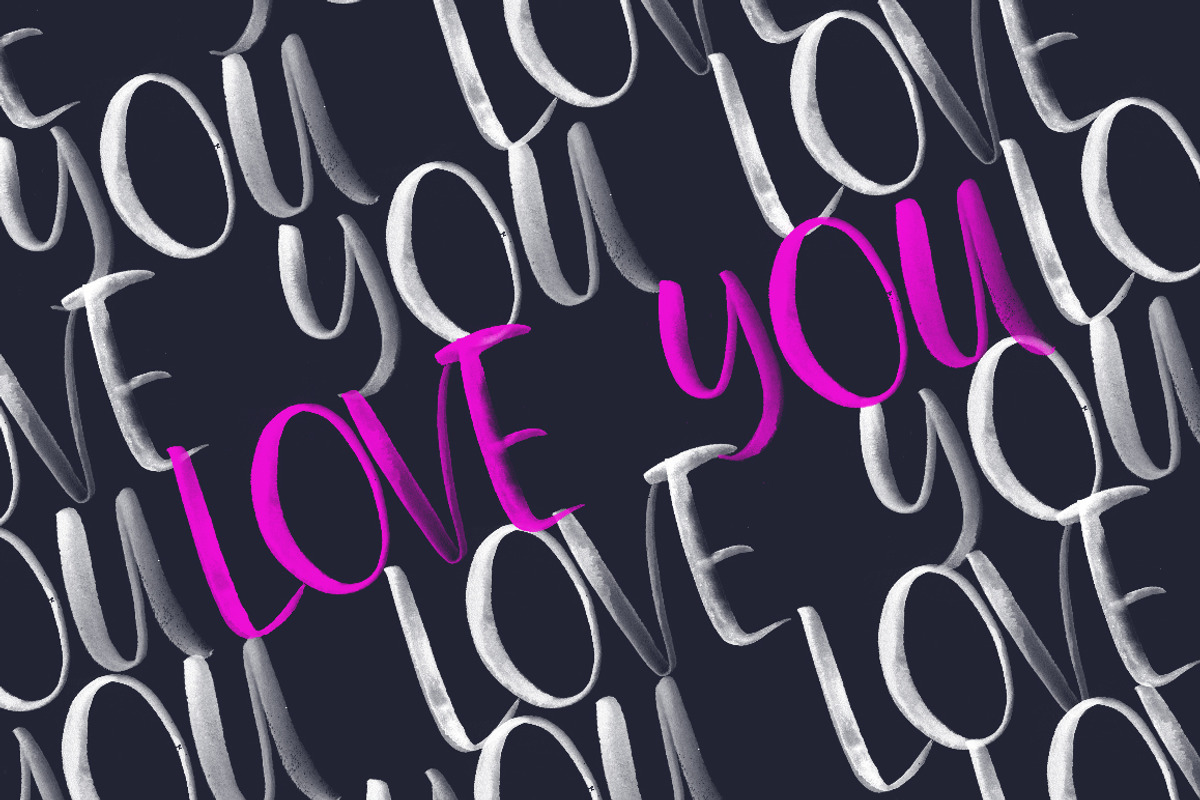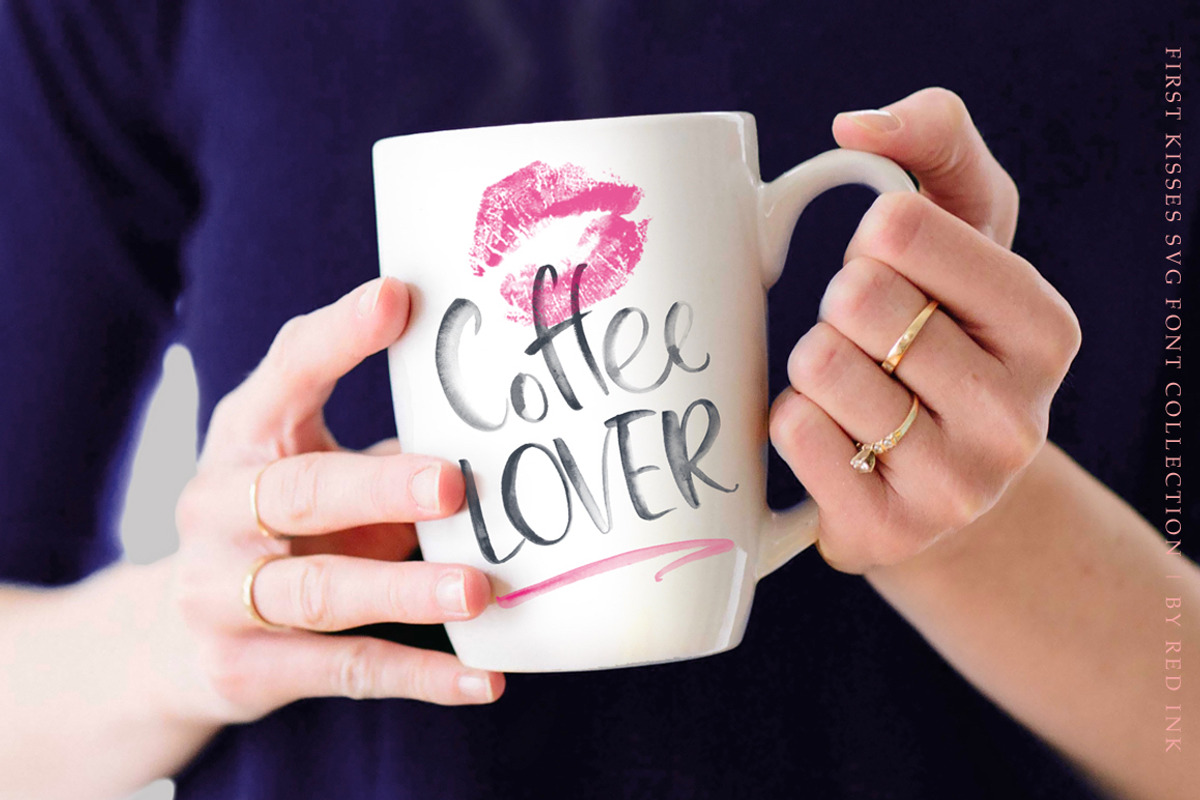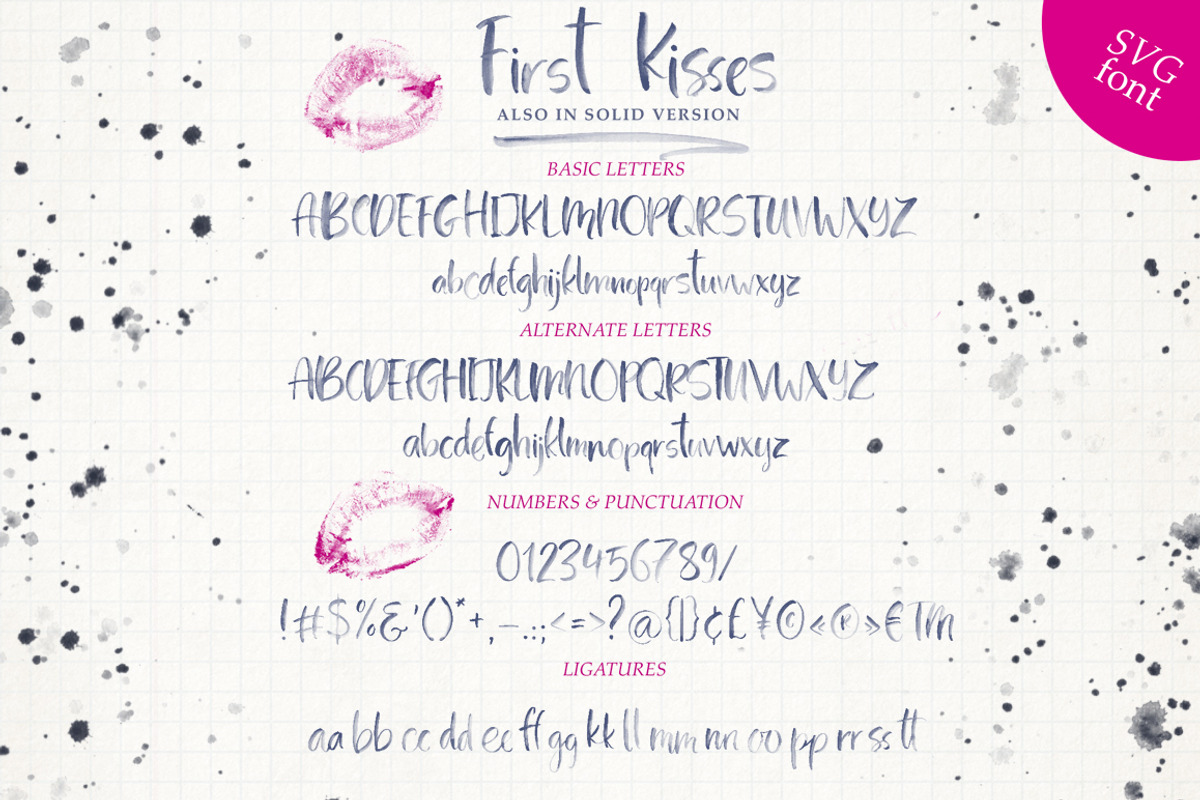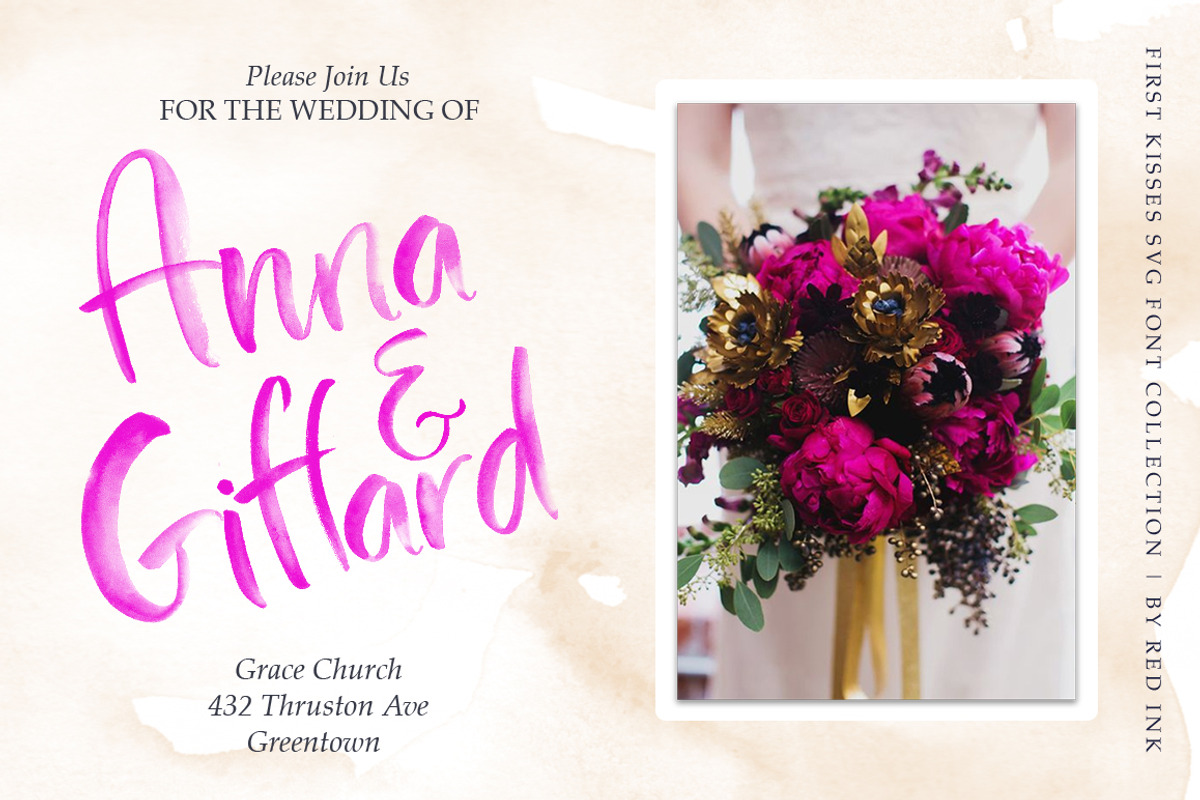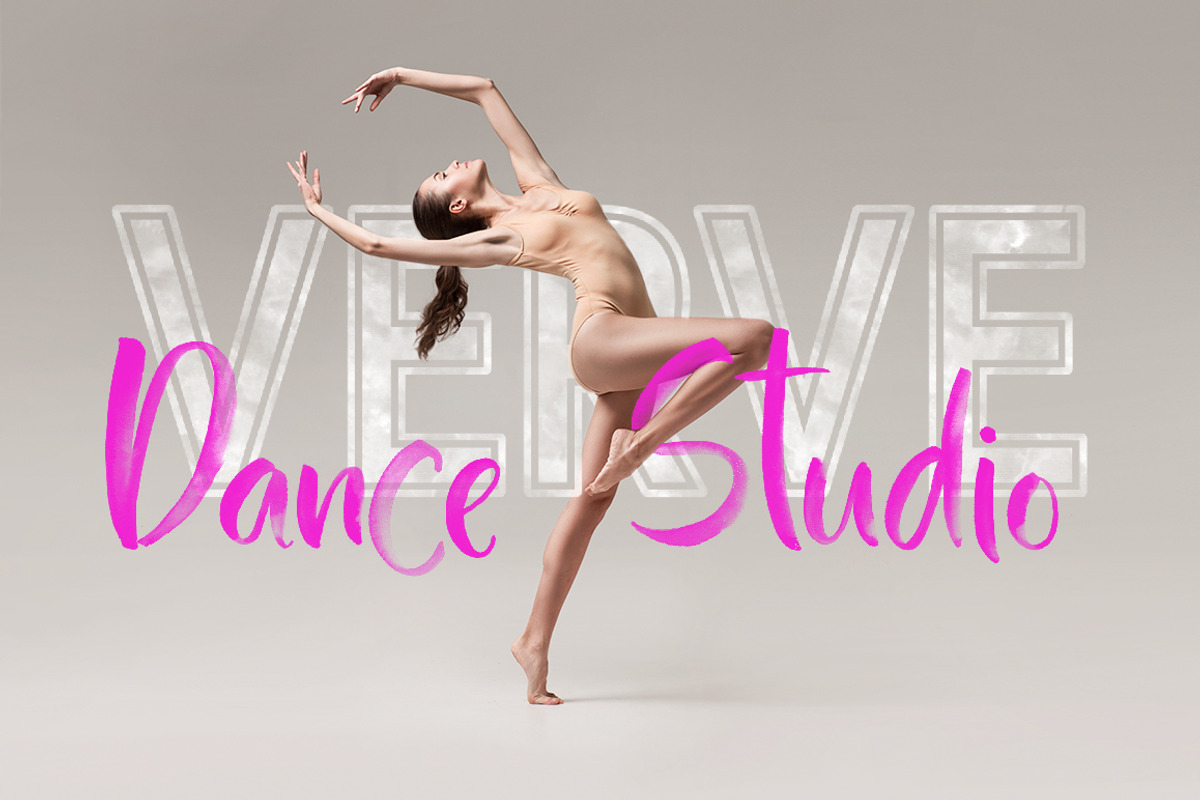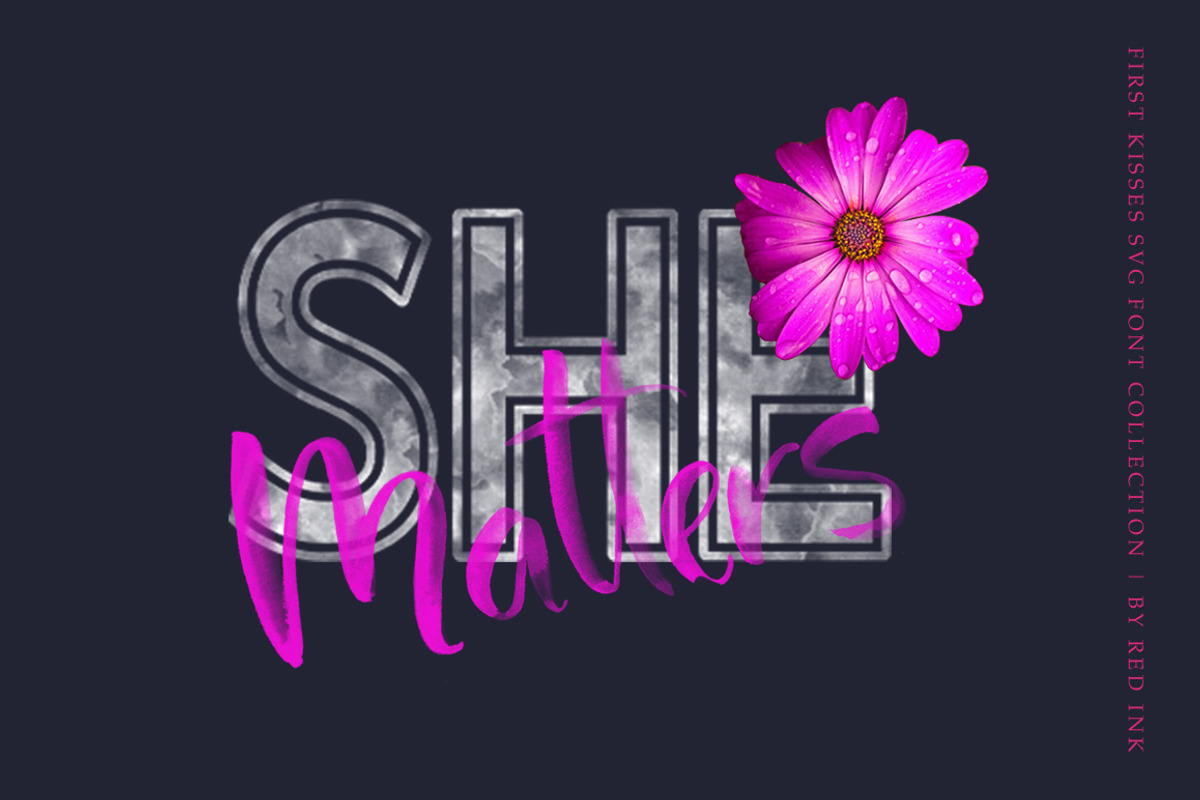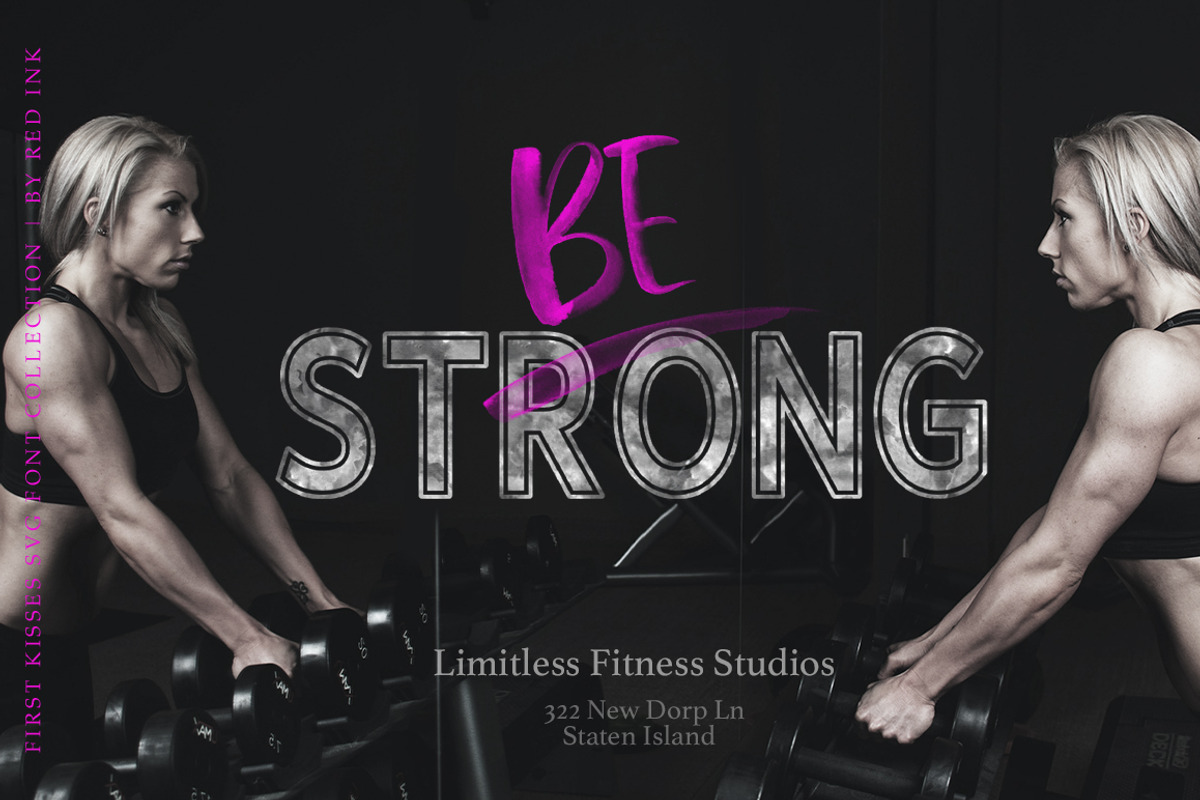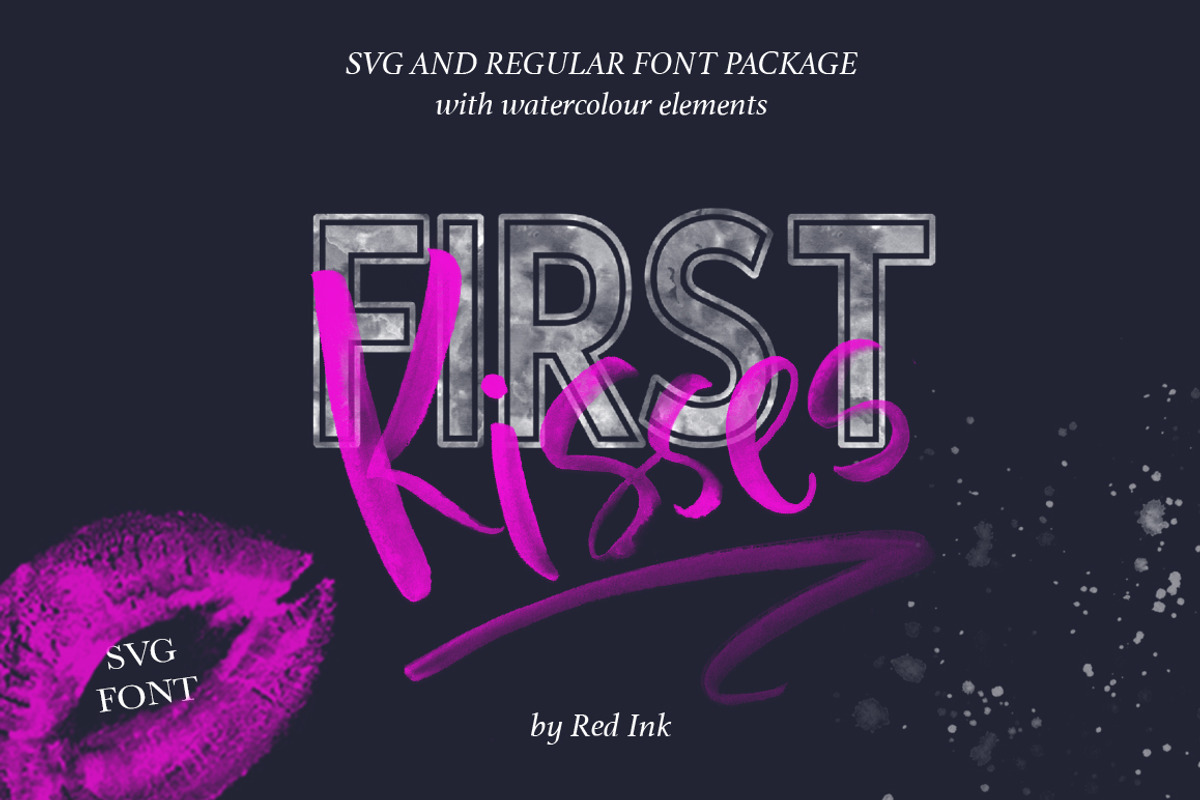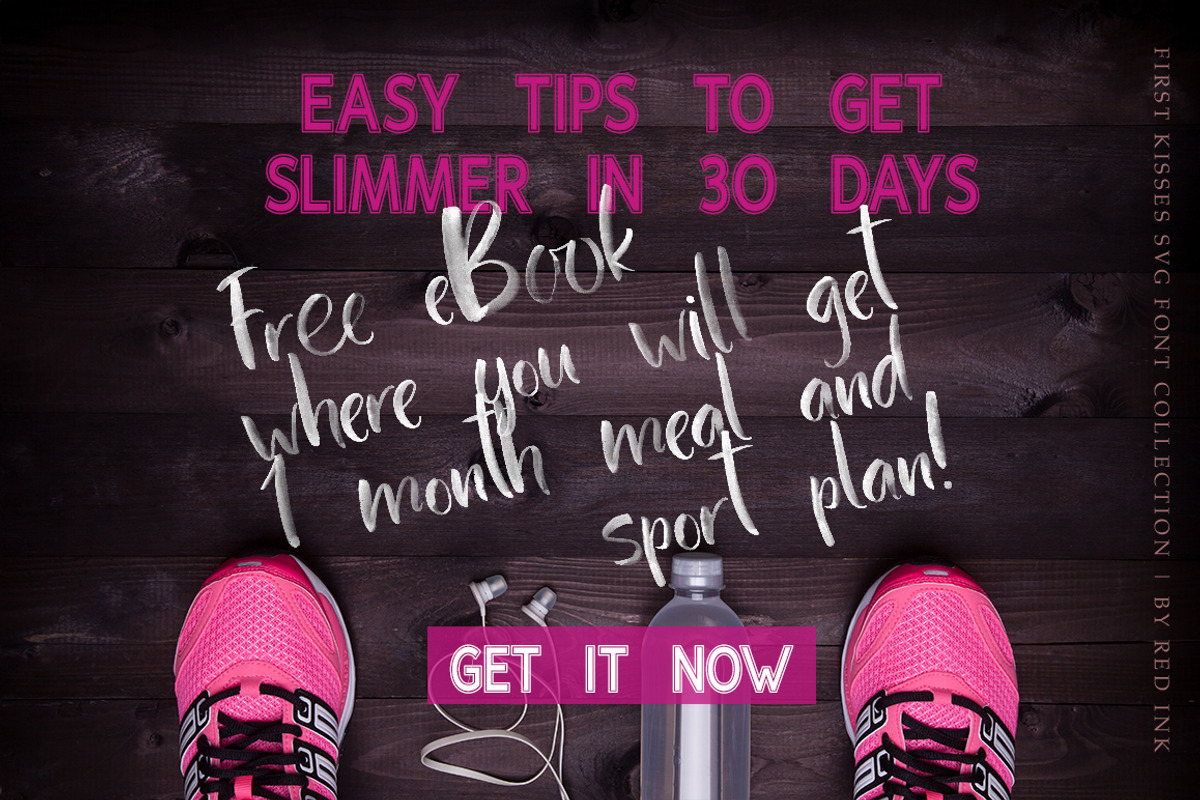
First Kisses Watercolor SVG font
Hi there! Iโm happy to introduce you my new FIRST KISSES Font Collection! ๐ ๐ ๐
I created two SVG Fonts, with watercolor handdrawn letters and symbols in high resolution. These fonts fully preserved the watercolor texture and transparency of the letters. The full set of alternate letters and double letter ligatures let you to make your designs more realistic and add the real handdrawn feel to your your messages.